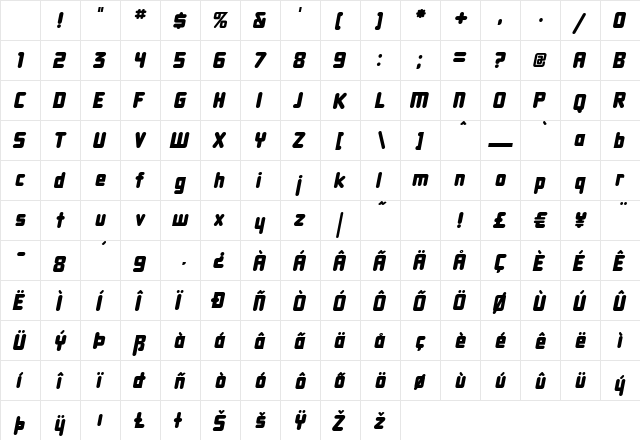
Complete DBXLNightfever Italic glyph index. Displaying only characters natively supported by DBXLNightfever Italic font.
DBXLNightfever is a composed and adaptable typeface that performs quietly and consistently across a wide range of design contexts. The slanted form adds forward momentum and visual energy.